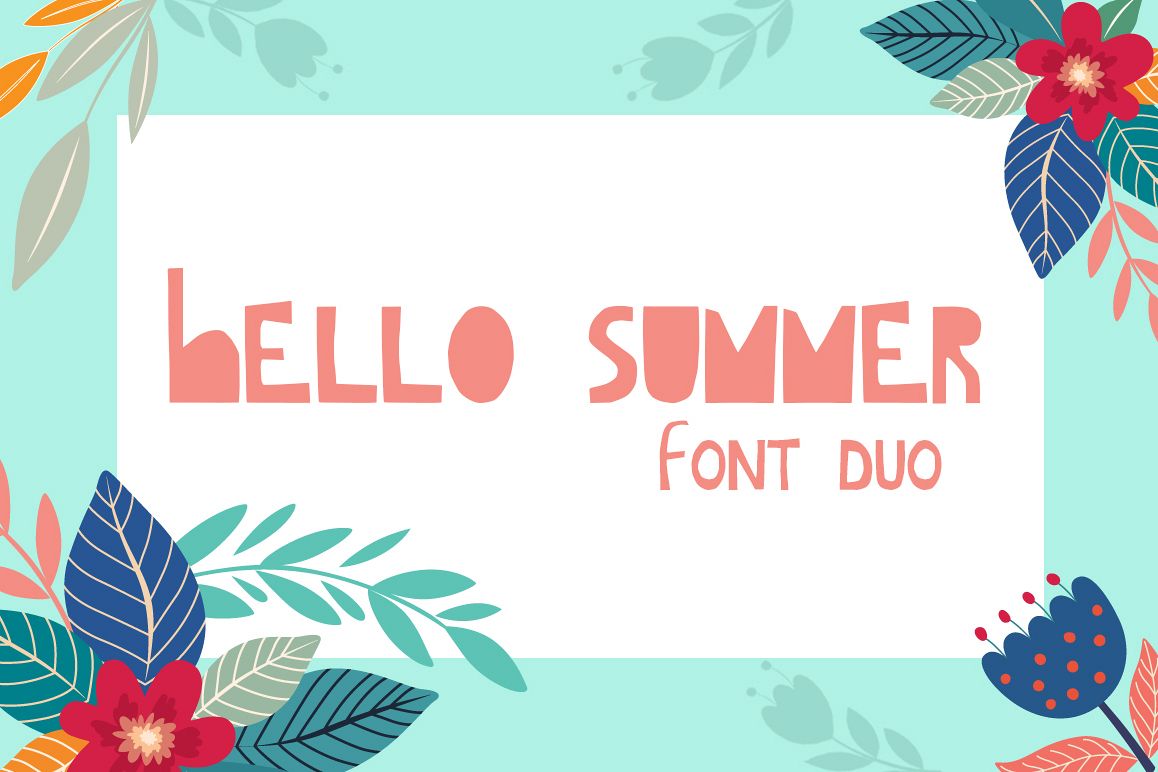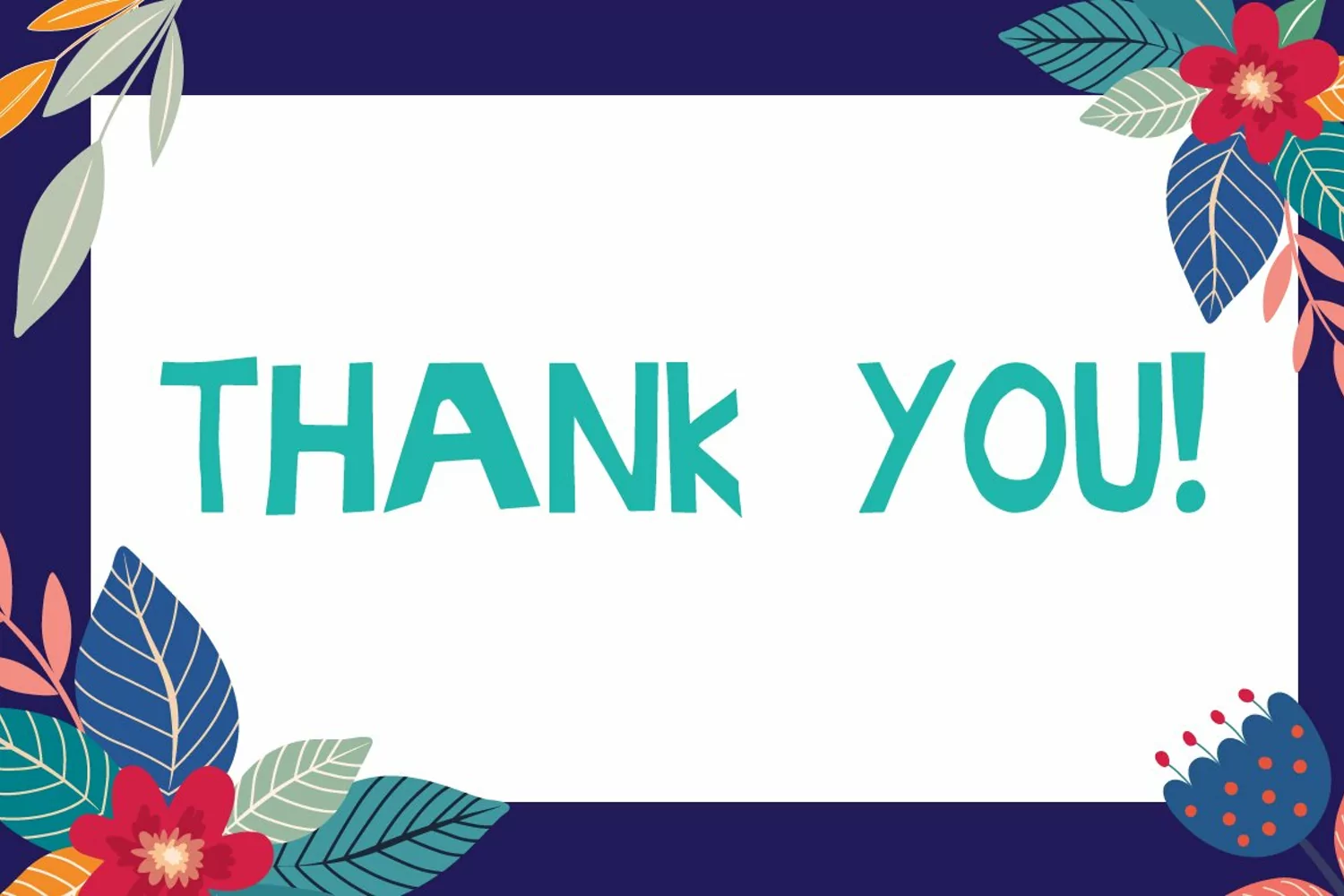
Hello Summer Cutout Font
Hello Summer is a cutout font where each letter was cut from paper
with scissors. In the download file you will find two fonts: Hello
Summer Regular and Hello Summer Fill, allowing you to choose the best
look for your designs.
It is great for crafters, birthday cards, invitations, etc. Each font
comes with uppercase & lowercase letters, numbers and limited
punctuation.